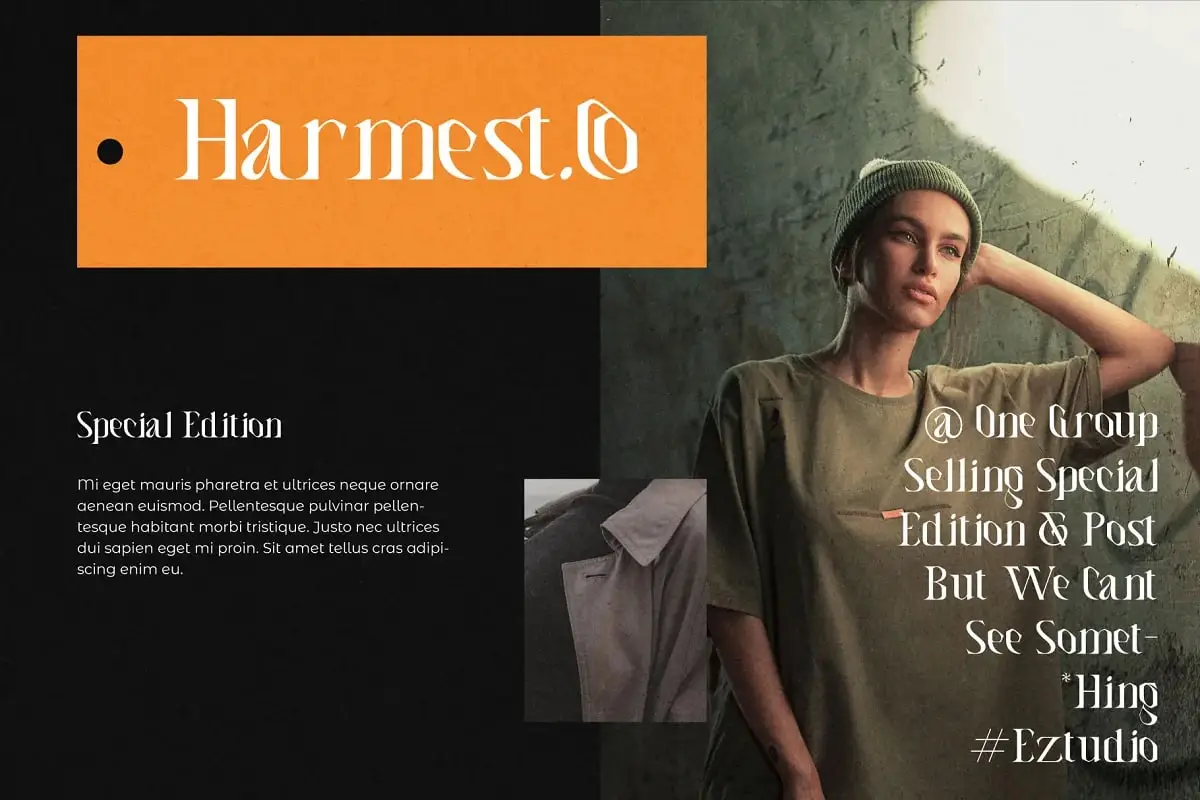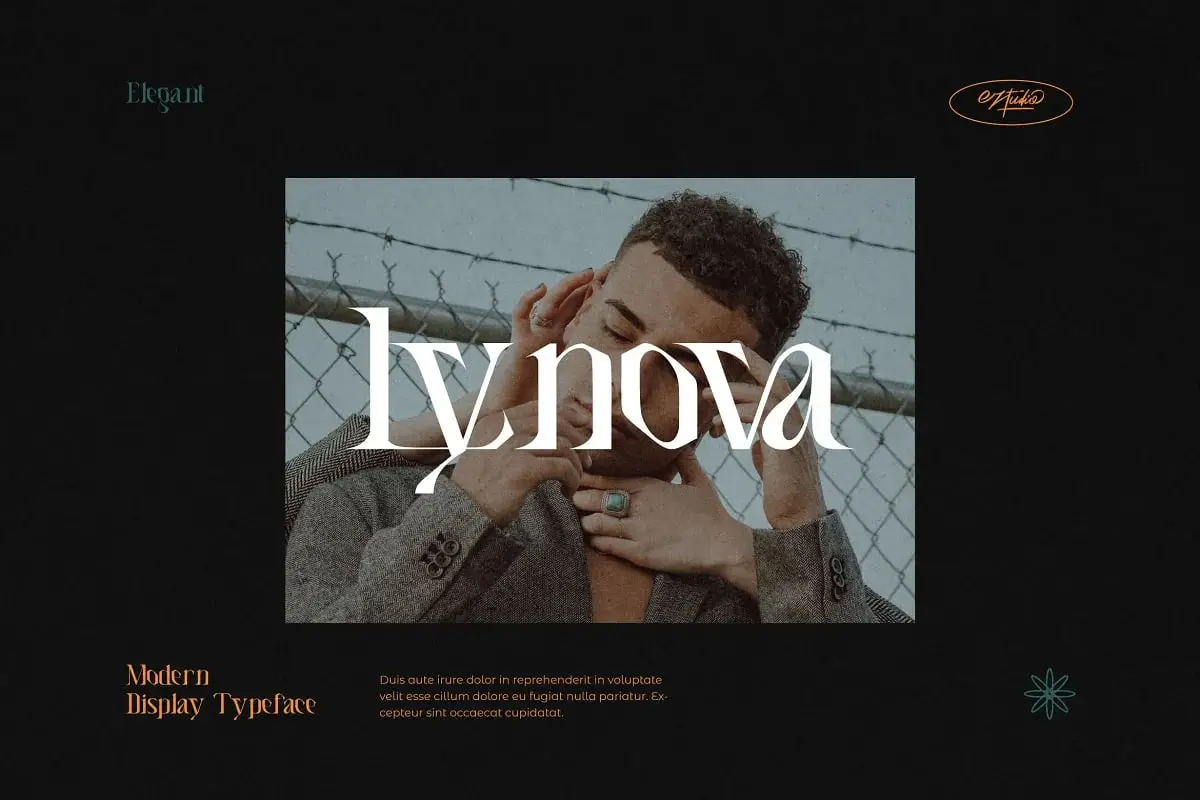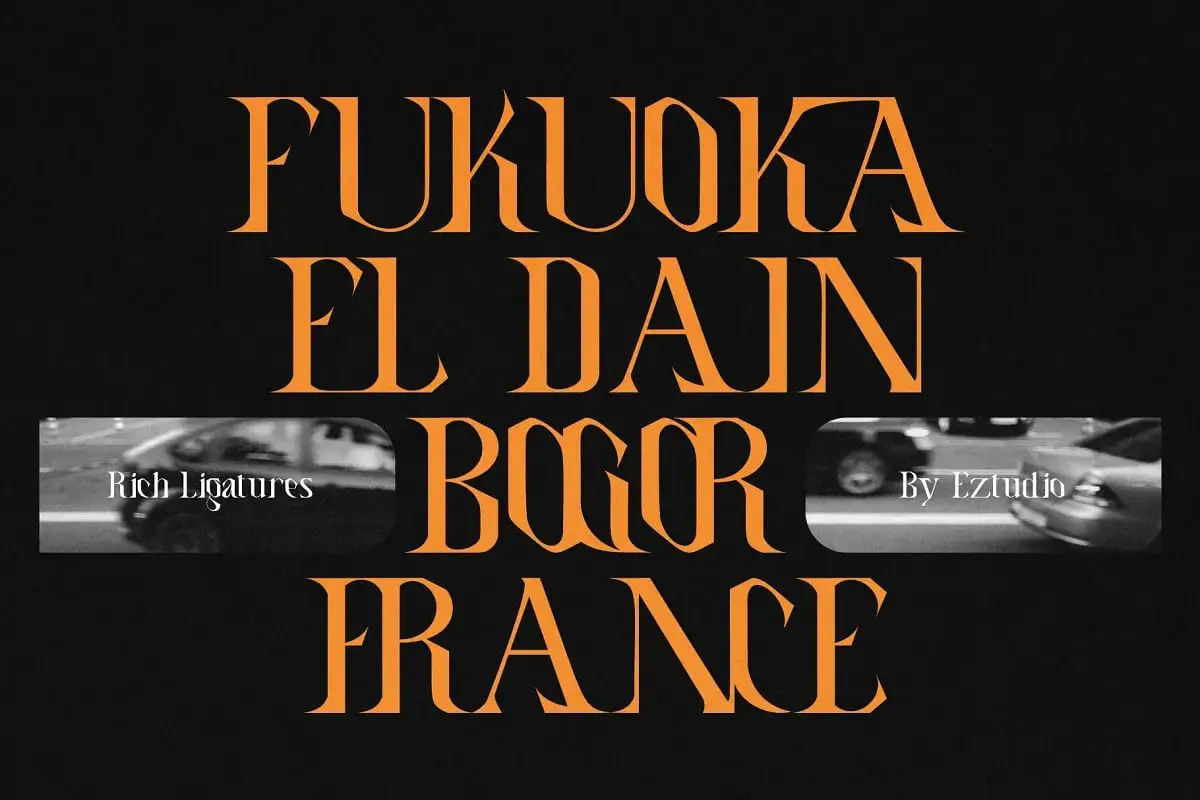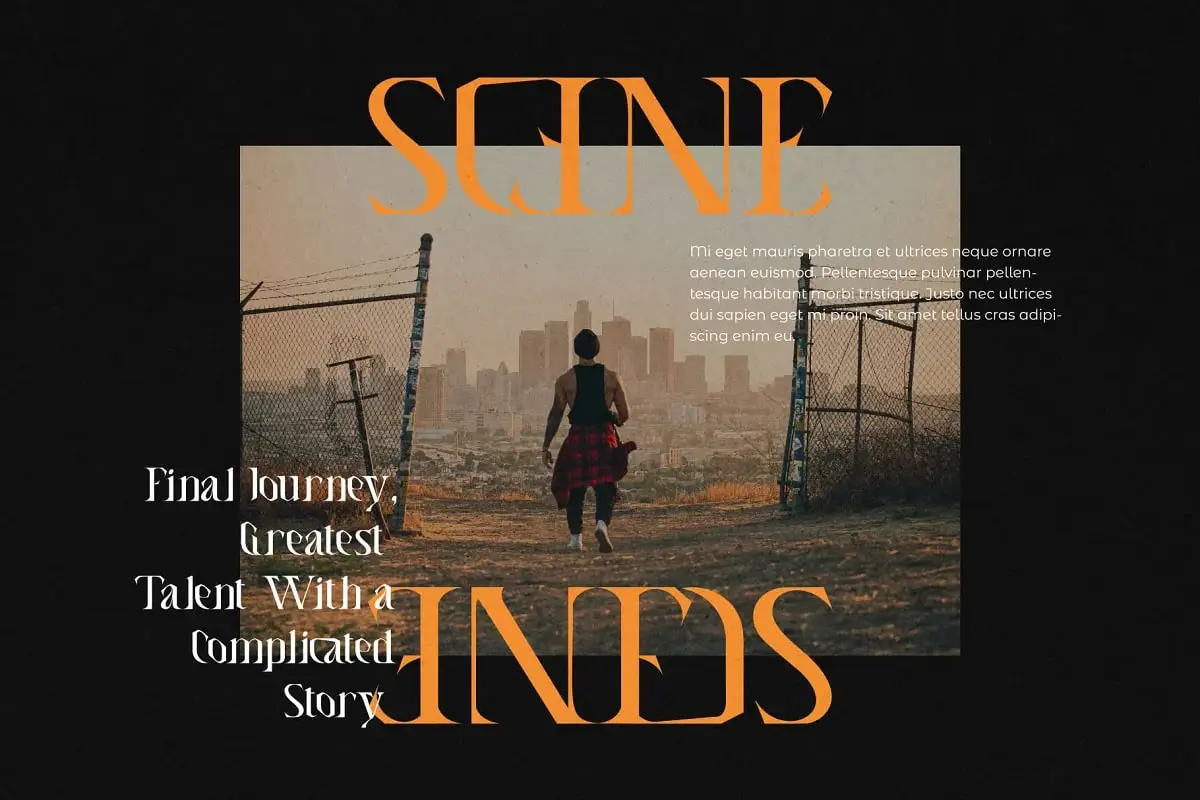
Lynova-Unique Display Font
The Lynova Unique Display Font is a captivating typeface designed to make your projects stand out. With its distinct character and stylish flair, this font is perfect for branding, logos, and eye-catching headlines.
Lynova features a range of styles and weights, ensuring versatility for various design needs. It is available in OTF and TTF formats, making it compatible with a wide array of design software.
• Ideal for creating unique branding materials.
• Perfect for use in print and digital media.
• Great for UI design where a distinctive touch is needed.